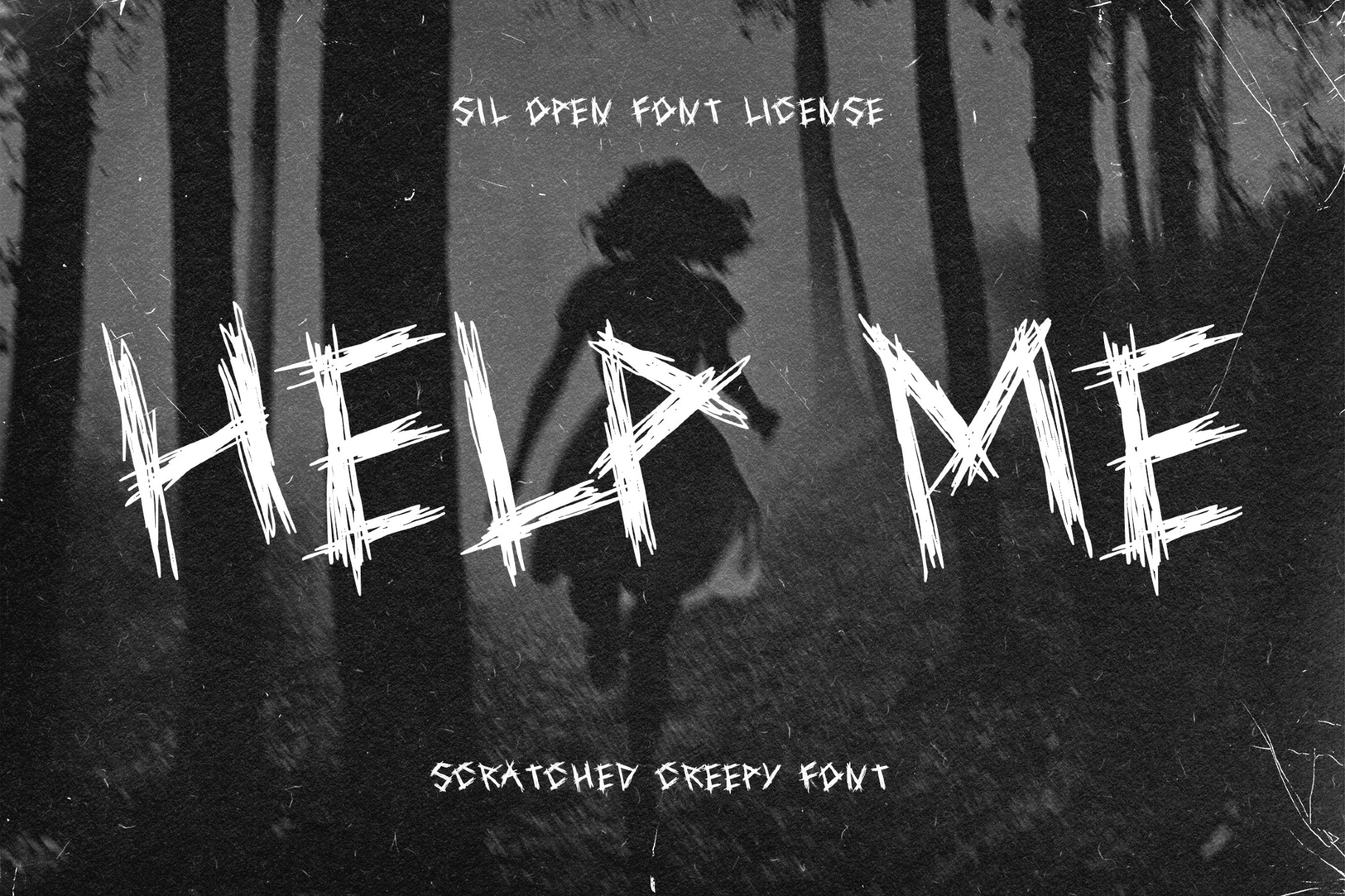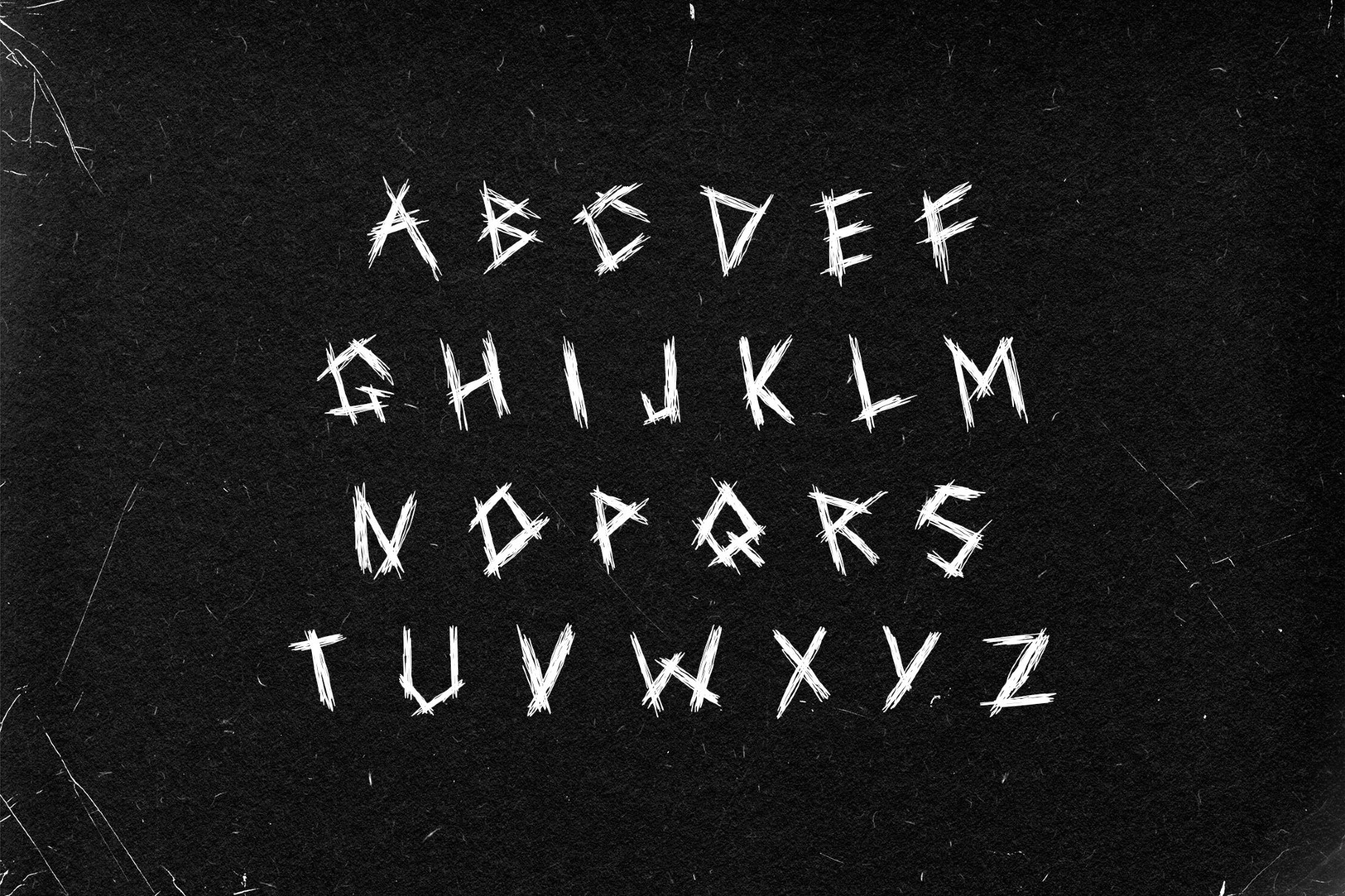
Help Me Font
HelpMe
The Help Me font was scratched straight into the surface, with jagged, torn strokes and chaotic letterforms that refuse to sit still. The characters are ripped and slightly unstable, plus the rough texture adds desperate energy, like a message carved in panic.
There’s something confrontational in the way this creepy type behaves. It pushes forward, uneasy and loud, in horror visuals, underground artwork, experimental posters and concepts